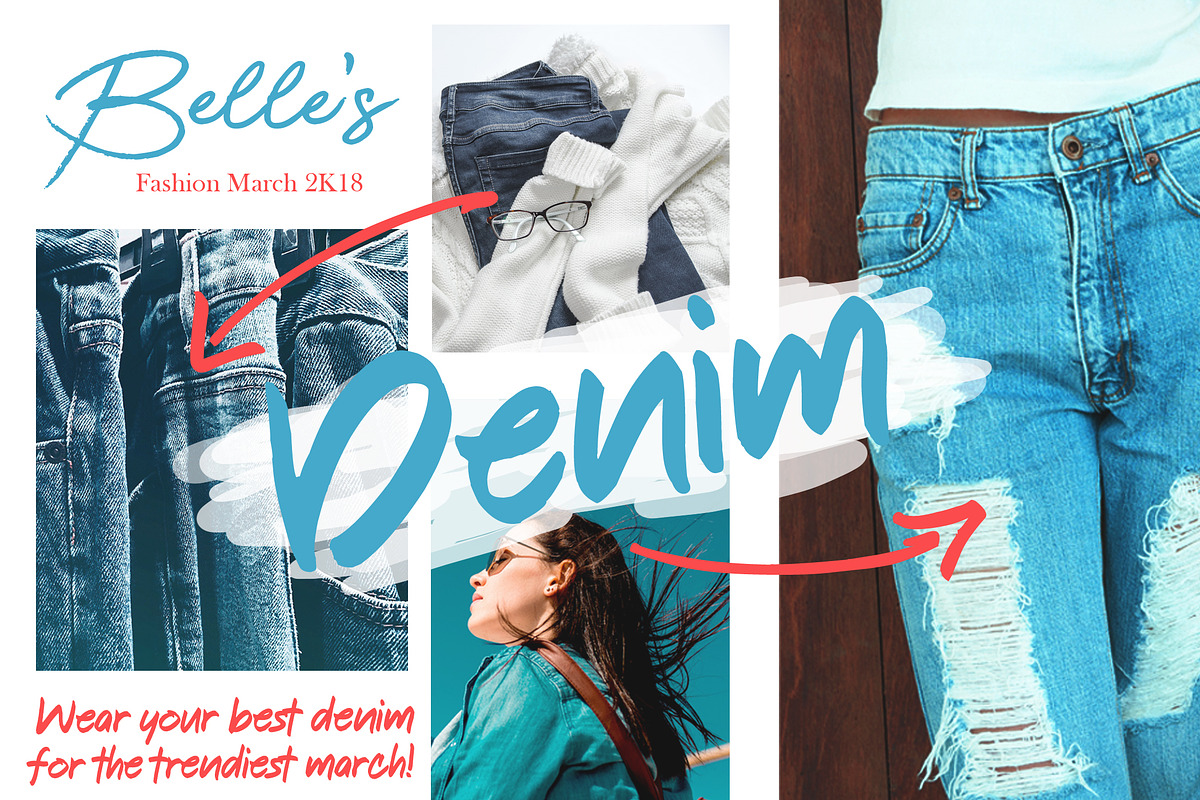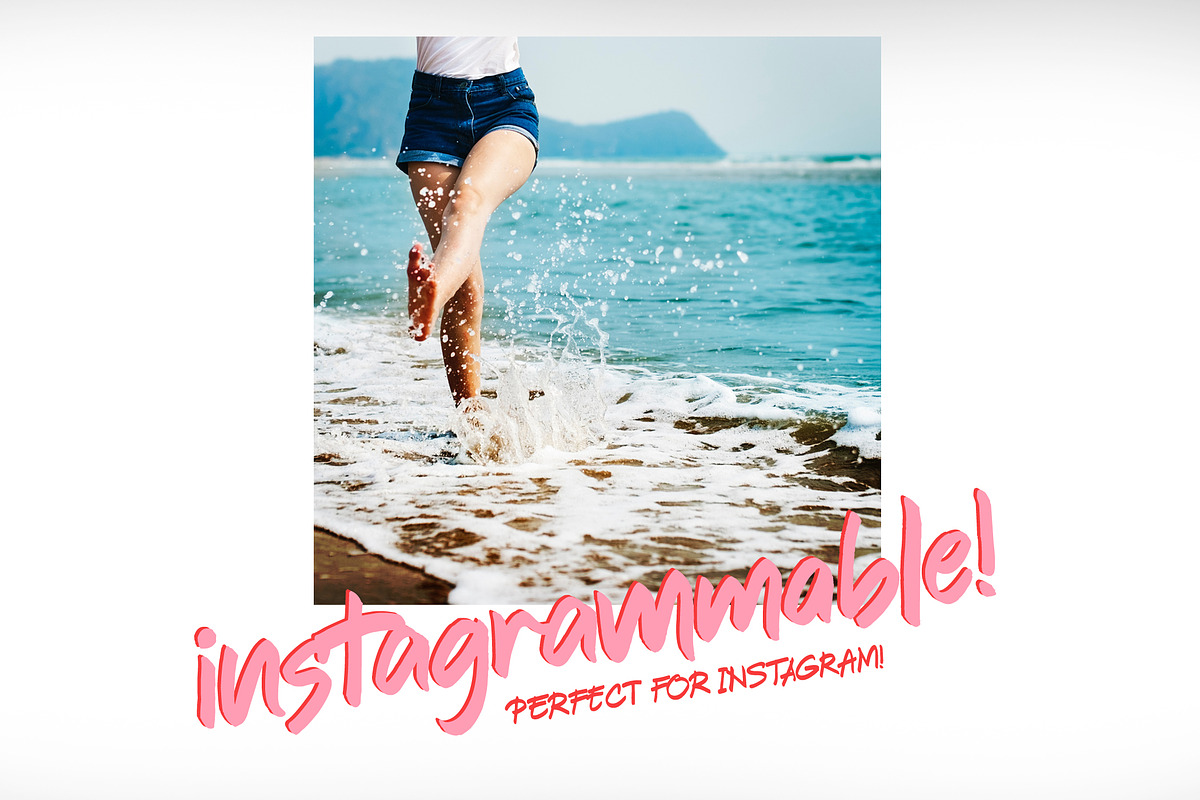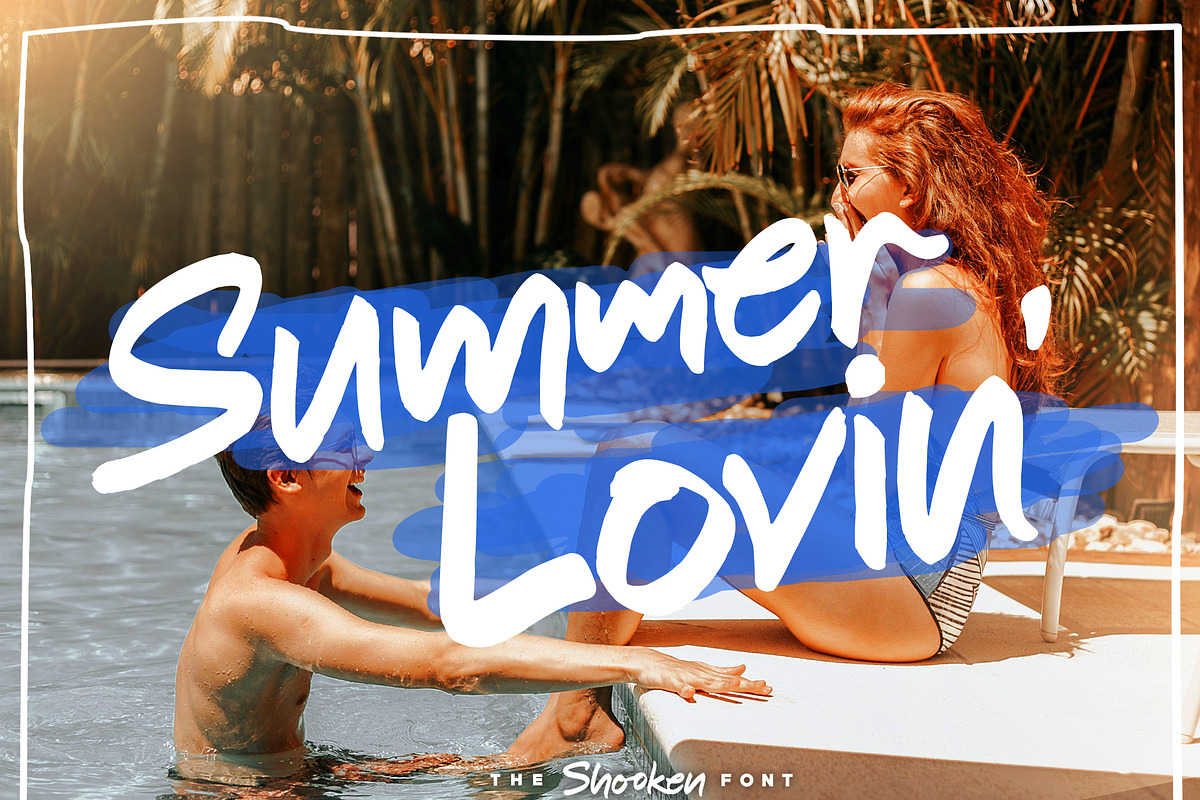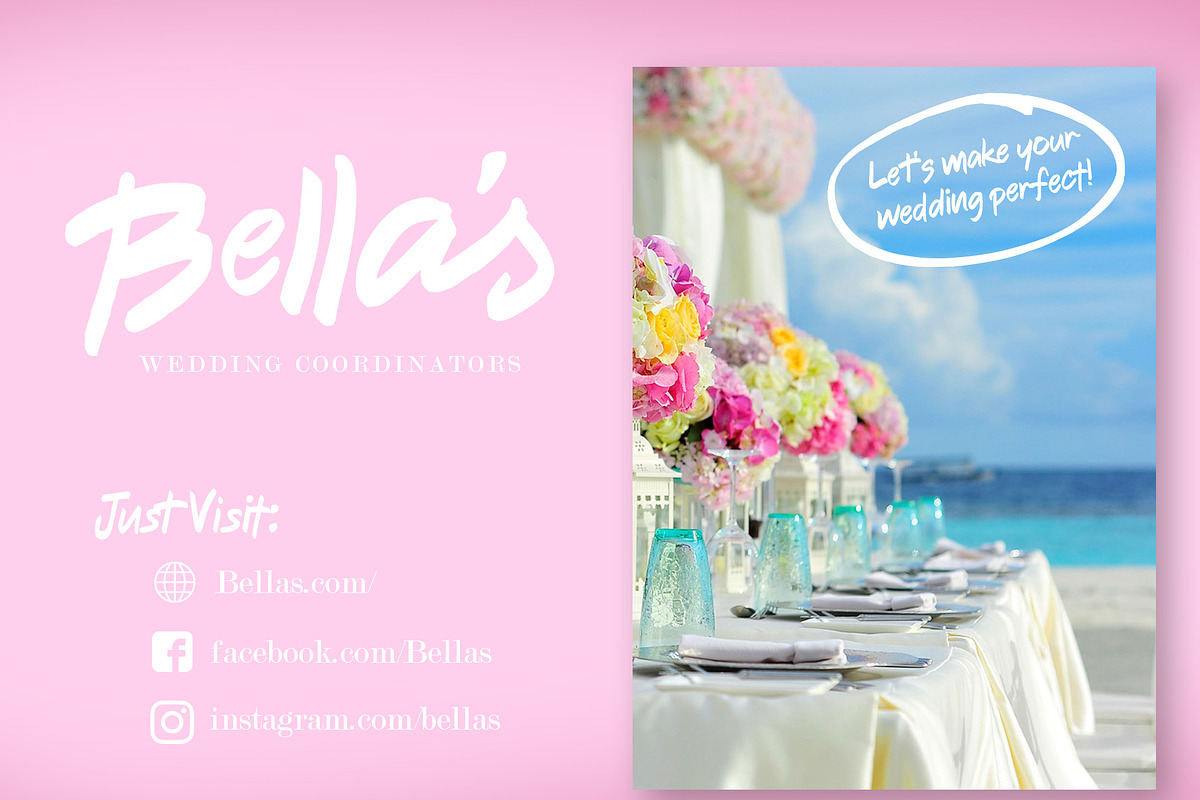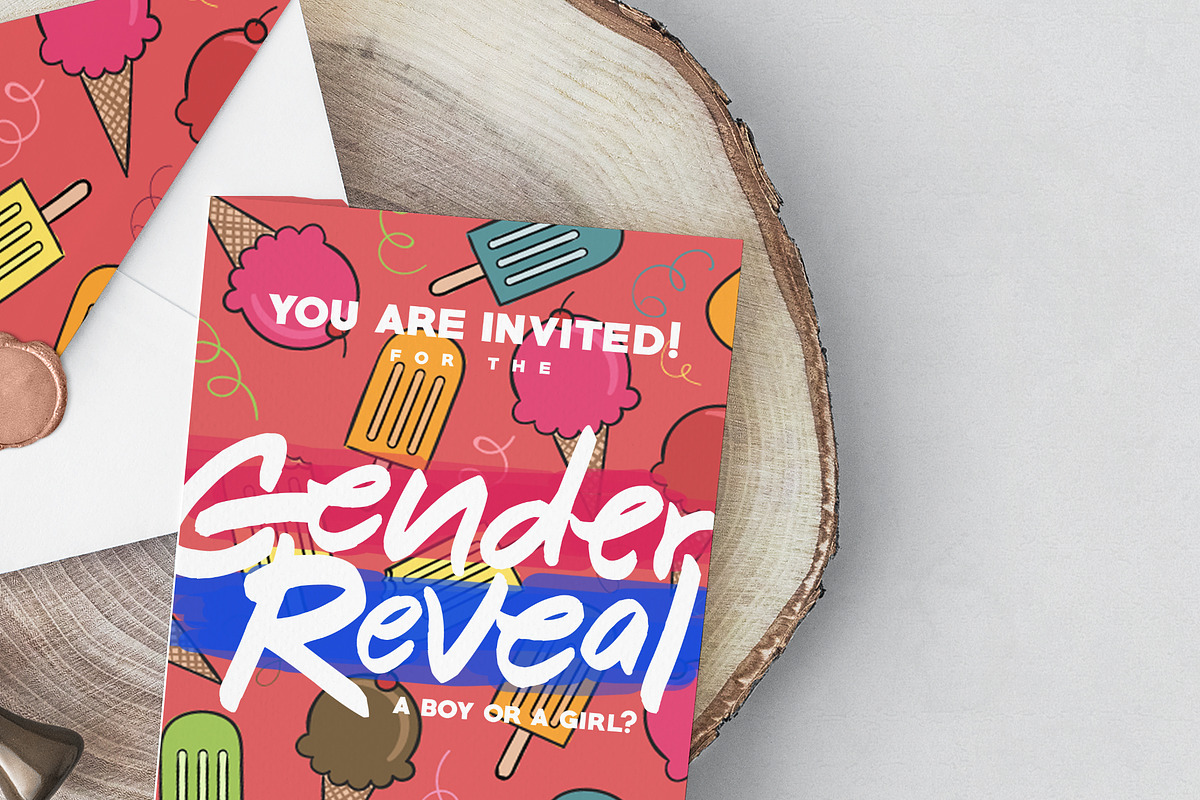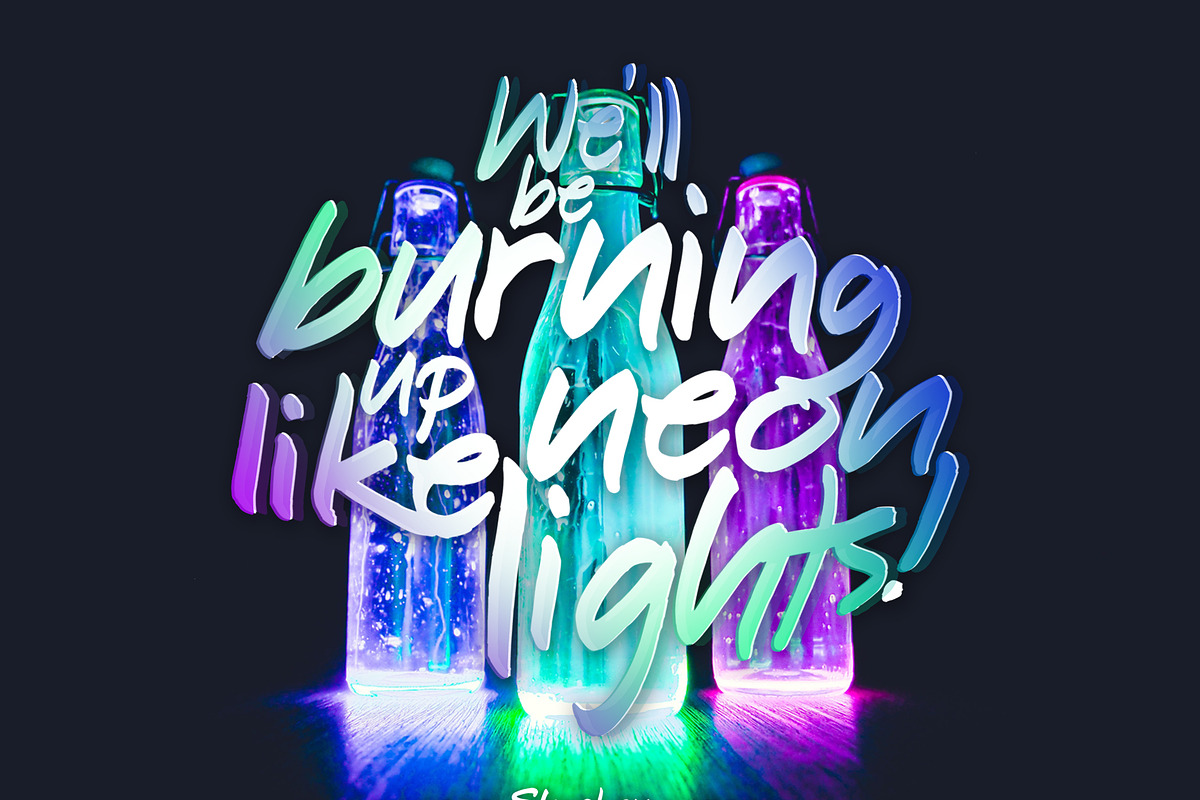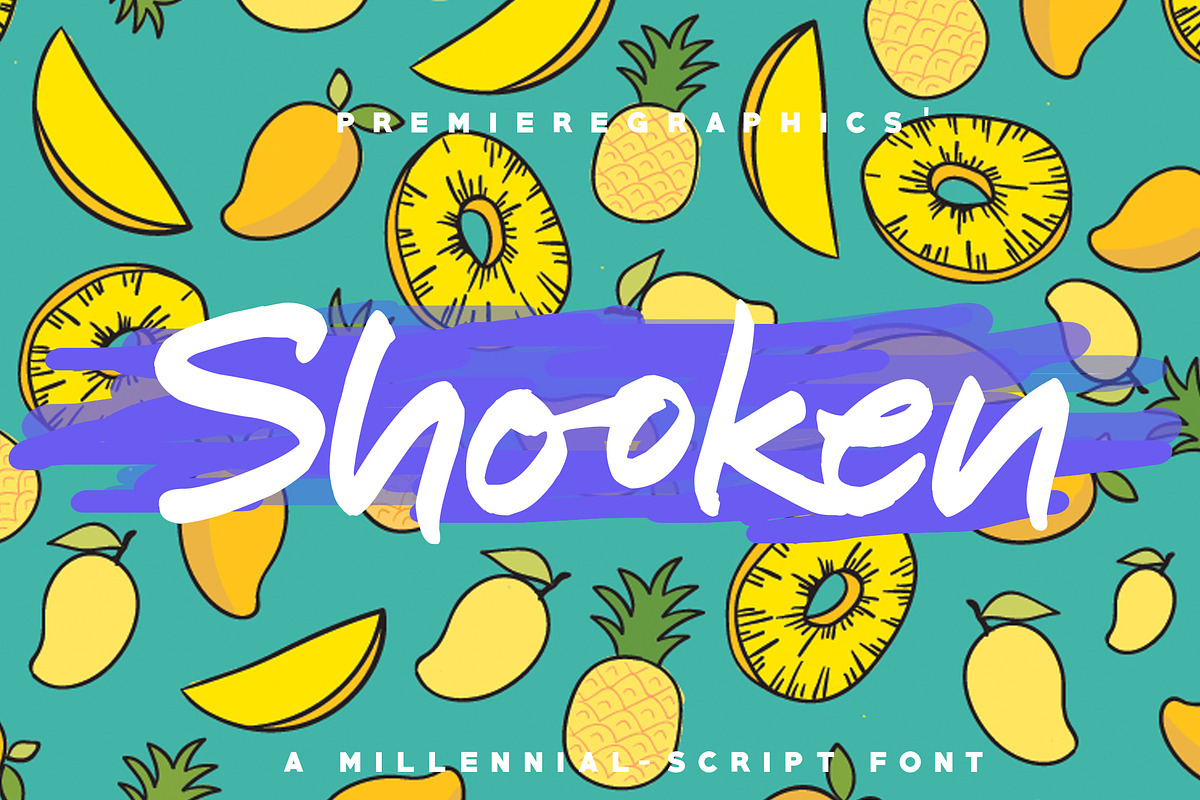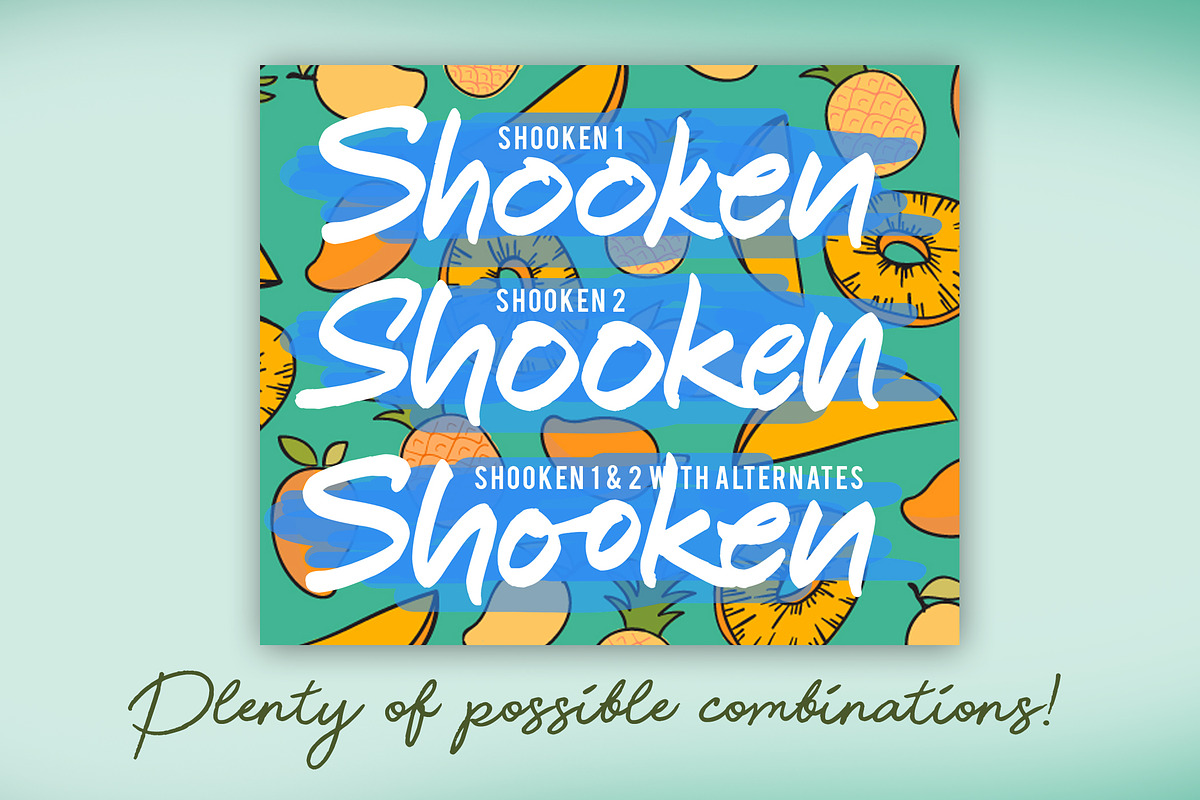
Shooken Fonts + Extras & Swashes
Shooketh to the core!
Hey there! Looking for the most fun font of the year? I give to you the Shooken font!
Shooken font is inspired from the new millennial slang, shooked, which obviously means shocked or surprised. Like this font, it will surprise you of what it can do! It can be a cartoon-ish font for your patterns or clip-arts or can be a serious but playful logo on your company. It is made to be a perfect fit for the millennial trend these days. It can be on your invitation cards, sign boards, videos, vlogs, blogs, banners, etc.
You can also mix the two fonts and add a few swashes and alternates to get the perfect combination for your project!